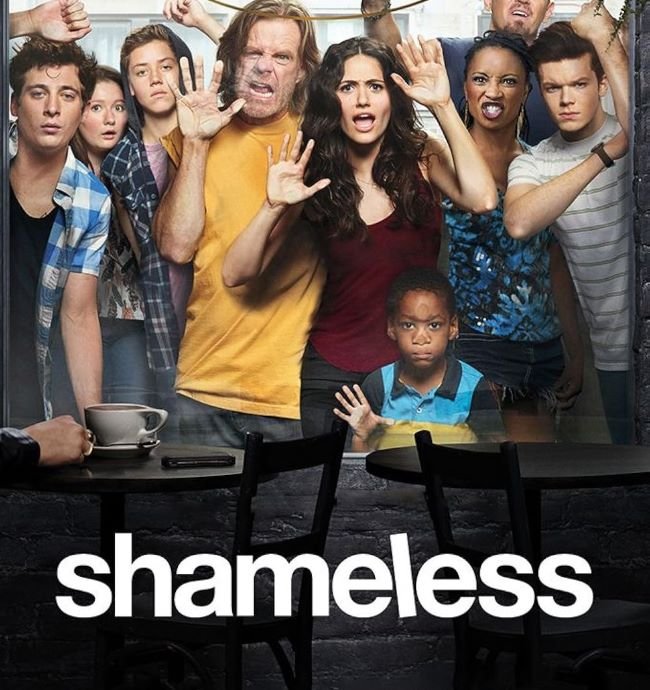
Shameless font — based on Helvetica Neue Bold, one of the most widely deployed sans-serifs in the history of corporate and broadcast typography, here pressed into service for a show about the exact opposite of corporate life — is the typography of Showtime’s 2011–2021 series about the Gallagher family surviving poverty on Chicago’s South Side with a combination of fierce loyalty, creative resourcefulness, and a complete absence of the social deference that the title directly names. The choice of Helvetica Neue Bold for a show about working-class defiance is itself a kind of typographic joke: this is the font of institutions, of signage, of authority — and Shameless uses it in service of a family that has never had institutional support in their lives. The freely available Shameless Font Alternative brings this bold, confrontational urban clarity to creative work.